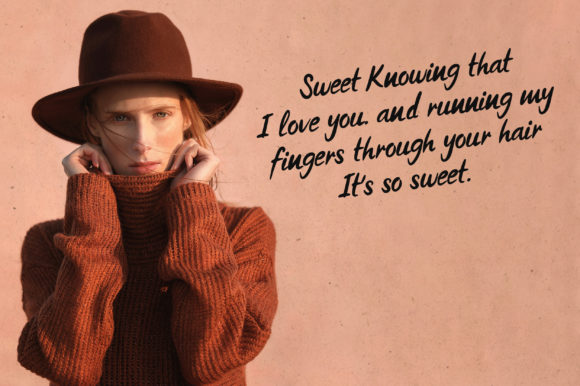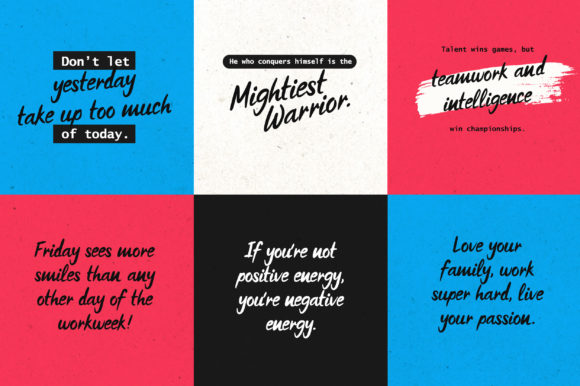
Introduction to Luminously Font
Luminously is a delicate and stylish script font.
It is suitable for any projects such as: logos, branding projects, label, photography, watermark, special events, and all your other lovely projects that need a beautiful script taste .
Key Features of Luminously Font
Why Choose Luminously Font?
Luminously Font offers exceptional quality and versatility, making it a valuable addition to your design toolkit. Whether you’re creating for personal projects or commercial use, Luminously Font delivers professional results.